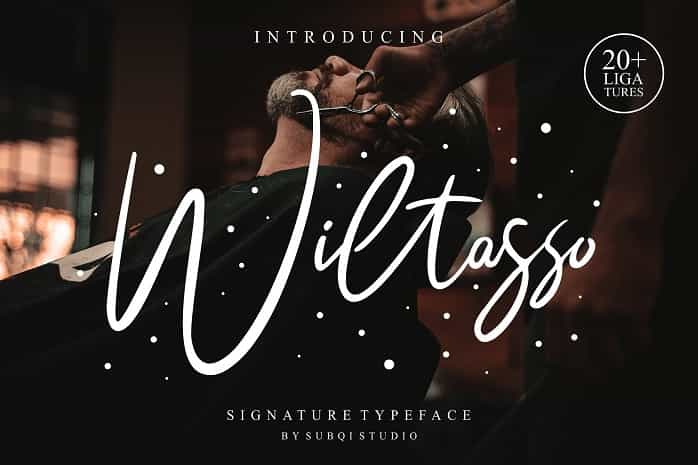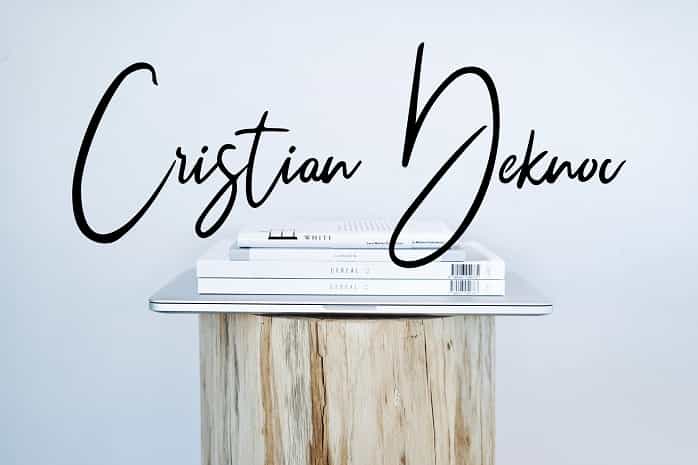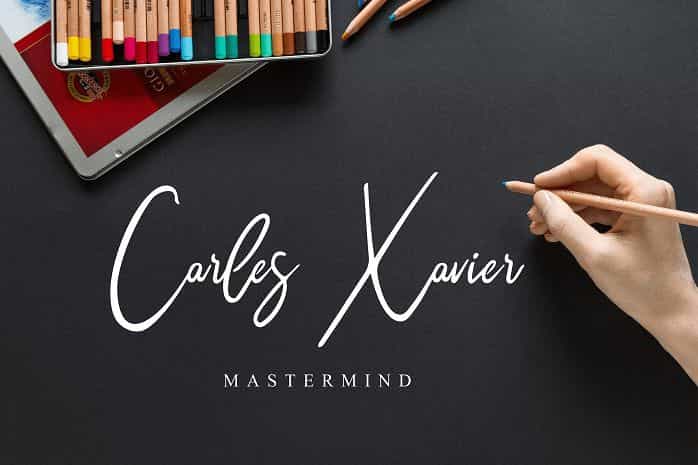
Introducing Wiltasso Font. Wiltasso is the trademark of this font. This font is made pure by the handwritten signature. It is the best for quotes, invitations, weddings, posters, signs, branding and logos.